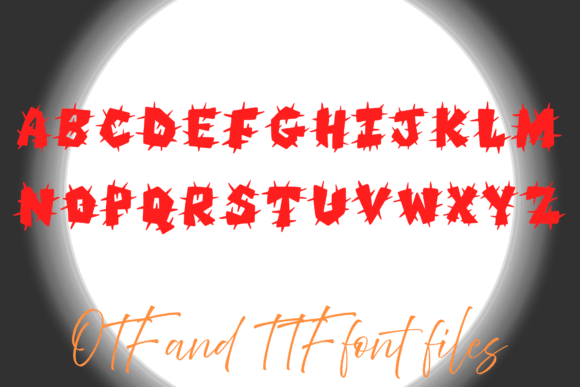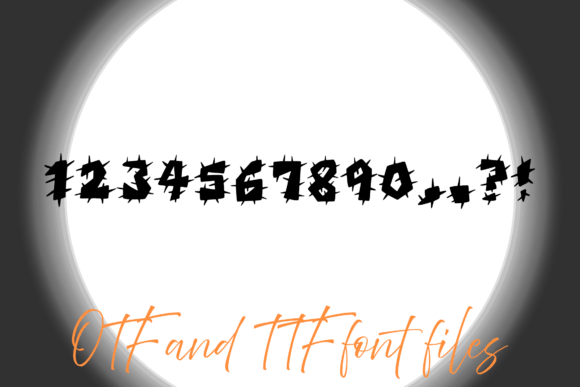
Introduction to Chunky Barb Wire Font
Chunky Barb Wire is a bold and rebellious display font wrapped in spiky, barbed accents that scream attitude.
With its jagged, edgy design, this font is made to stand out in punk rock posters, extreme sports branding, Halloween invites, or any project that needs a fierce, chaotic energy Includes uppercase characters, numbers, punctuation, and both OTF and TTF formats.
Key Features of Chunky Barb Wire Font
Why Choose Chunky Barb Wire Font?